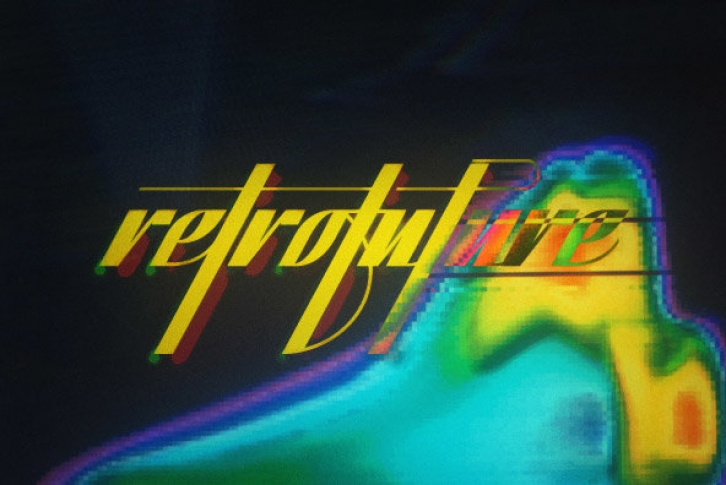
Einstein typeface is inspired by a famous quote of Einstein's, which I first used to inspire myself as an individual. Practically the type is based on a combination of old that can always easily turn into modern.